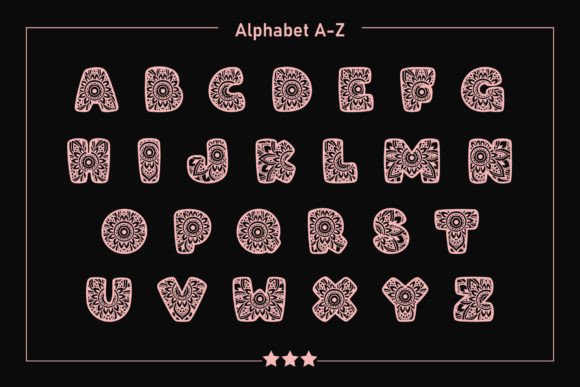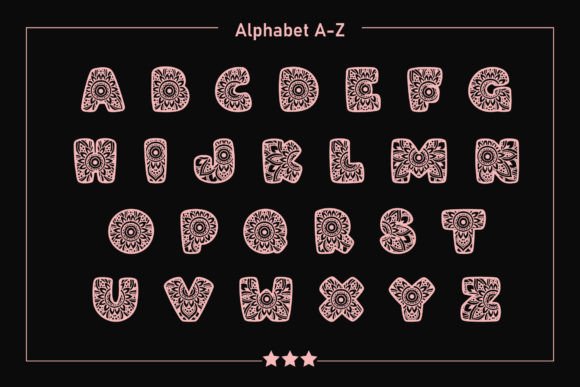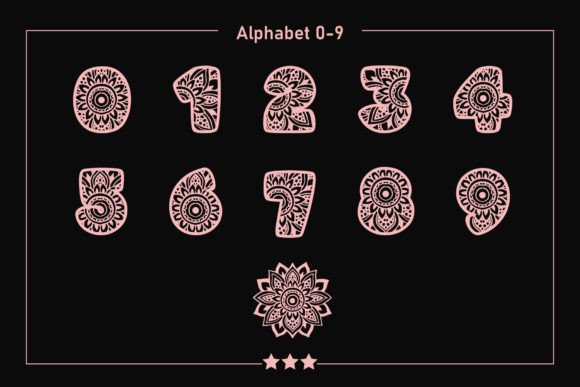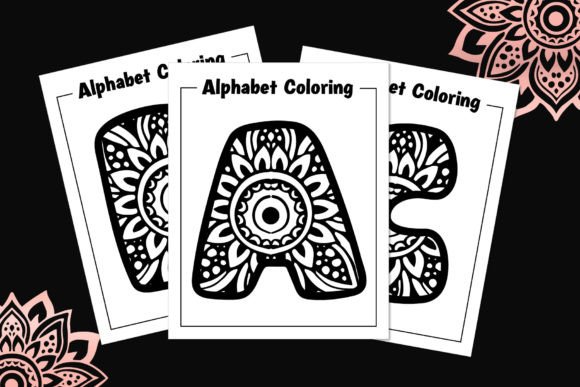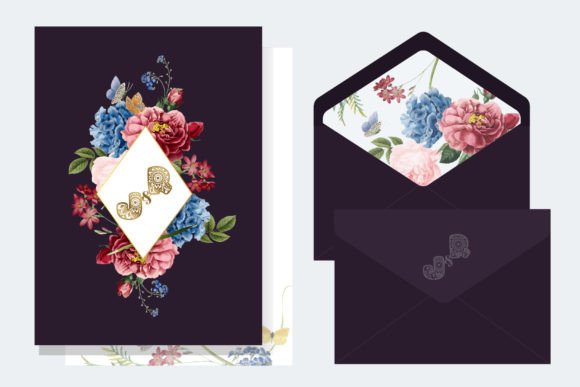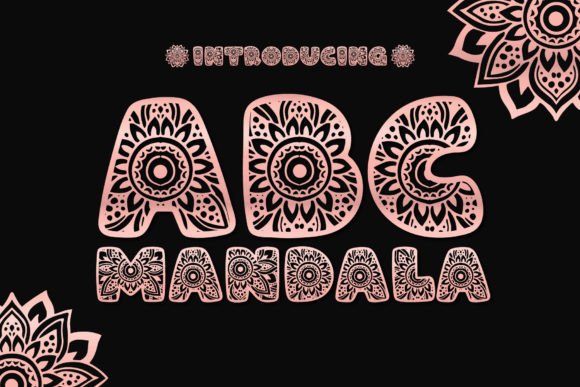
The Magic of ABC Mandala Font: Elevate Your Designs with Elegance
I’ll never forget the time I was working on a wedding card design project, and my client asked for something that would make their special day truly unforgettable. I scoured the internet for the perfect font, and just when I thought I’d never find it, I stumbled upon the exquisite ABC Mandala Font. It was love at first sight! ✨ The intricate details, the elegant curves, and the versatility of this decorative font won my heart, and I knew I had to share it with the world.
- ✨ Exquisitely designed with intricate details and elegant curves
- ✅ Highly versatile and suitable for various design projects, from crafting to KDP
- 🌈 Perfect for making your designs stand out with a touch of elegance
While ABC Mandala Font is a stunning addition to any design, there are a few things to keep in mind: 🤔
- ⚠️ May not be suitable for very small font sizes, as details may get lost
- Experiment with OpenType features, such as glyphs and stylistic alternates, to add more flair to your design
- Explore OpenType features, such as ligatures and swashes, to add more personality to your design
The Story Behind ABC Mandala Font
The story goes that the designer of ABC Mandala Font was inspired by traditional mandalas and the intricate patterns found in nature. With a passion for creating beautiful, elegant designs, they poured their heart and soul into crafting a font that would bring a touch of sophistication to any project.
Q: What is ABC Mandala Font best used for?
A: ABC Mandala Font is perfect for a variety of design projects, including crafting, greeting cards, wedding cards, T-shirt designs, mugs, KDP, and more.